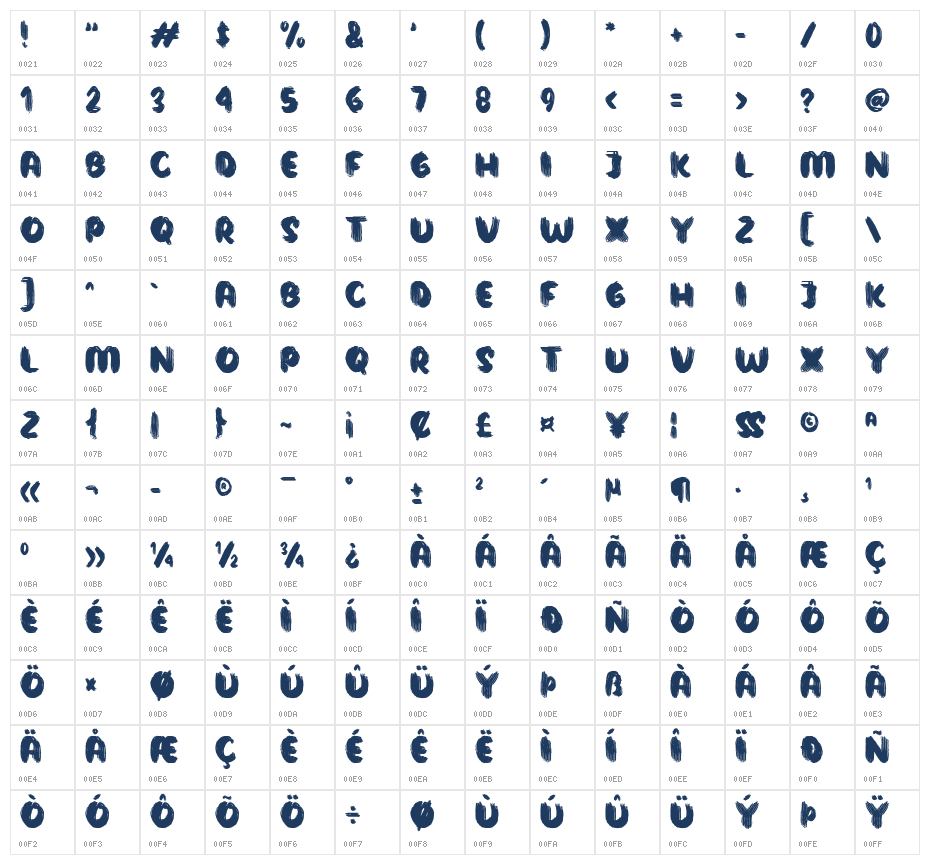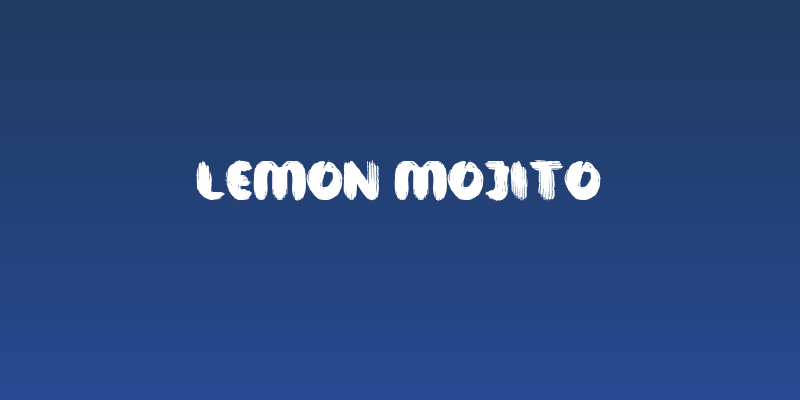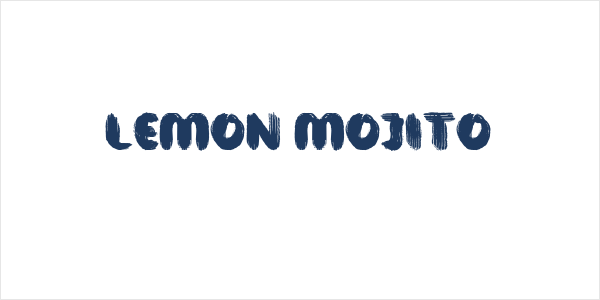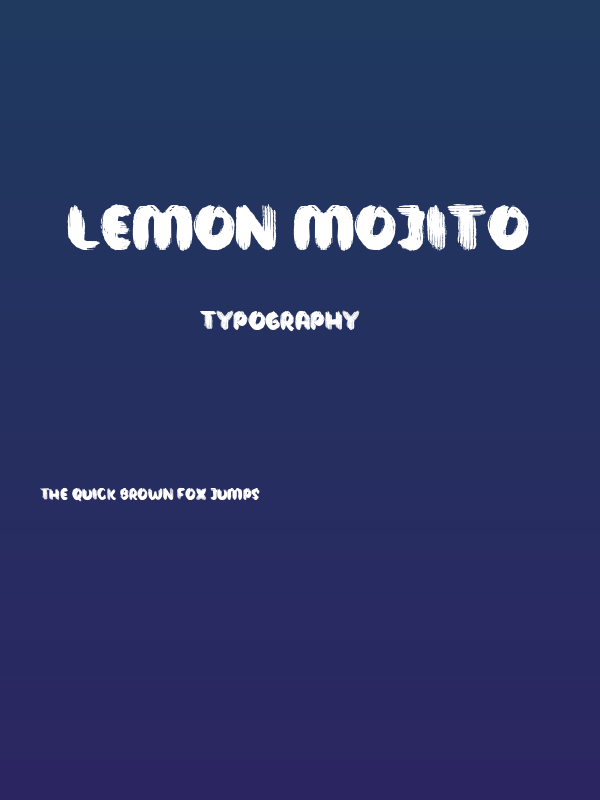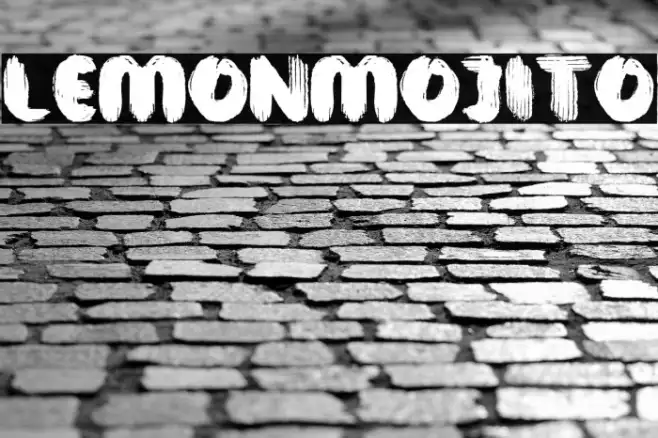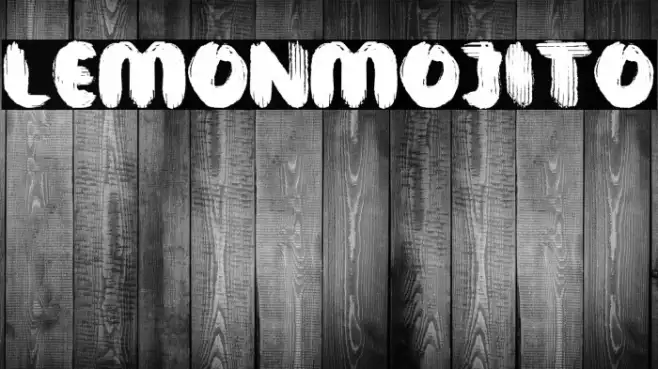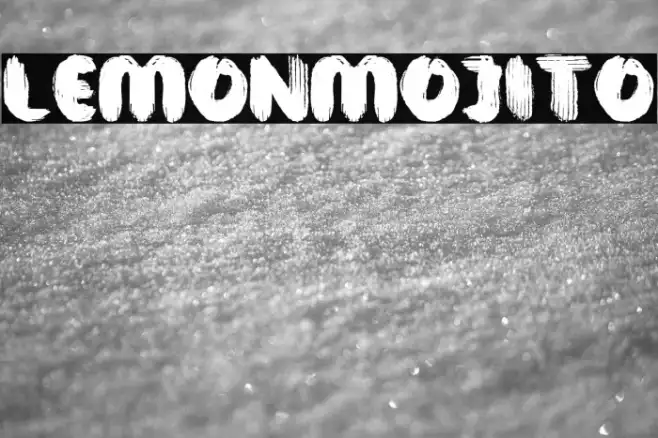
Lemon Mojito Font
Lemon Mojito Description
A bold, textured, brush-stroke style font with a casual and artistic appearance, featuring uppercase and lowercase letters, numbers, and common punctuation.
| Overall Style | Casual, Artistic, Handcrafted |
| Use Case | Headlines, Posters, Logos, Artistic Designs |